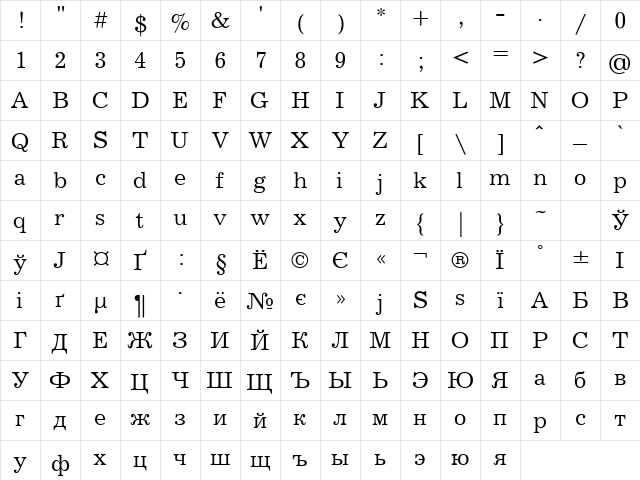
Journal Cyrillic
Design Context for Journal Typeface
Journal is a composed and adaptable typeface that performs quietly and consistently across a wide range of design contexts.